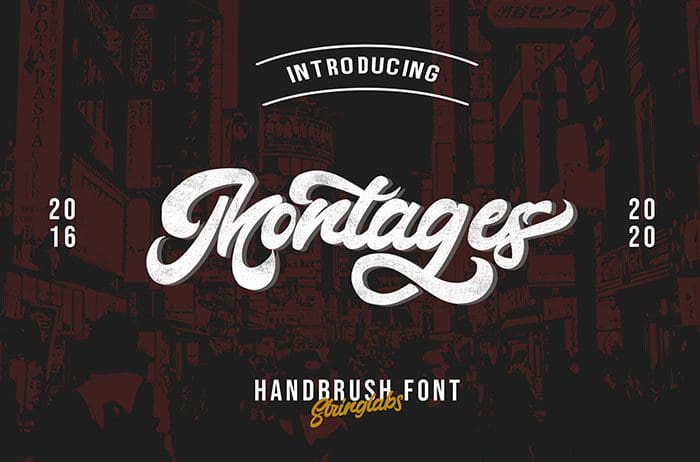
Montages Bold Script Font
Montages bold script font with Vintage style. Unique design taste and combine with classic retro style of the 80s, trendy, vintage, and sporty. Montages is perfect for retro lovers, besides this font is also perfect if used for brands such as: barbershop, motorcycle club, clothing, coffee shop, shoe brands, vapor shop, hipster and many more. This font is available only for personal use. Created this font by StringLabs. You can also search more free Script Fonts. Thanks.